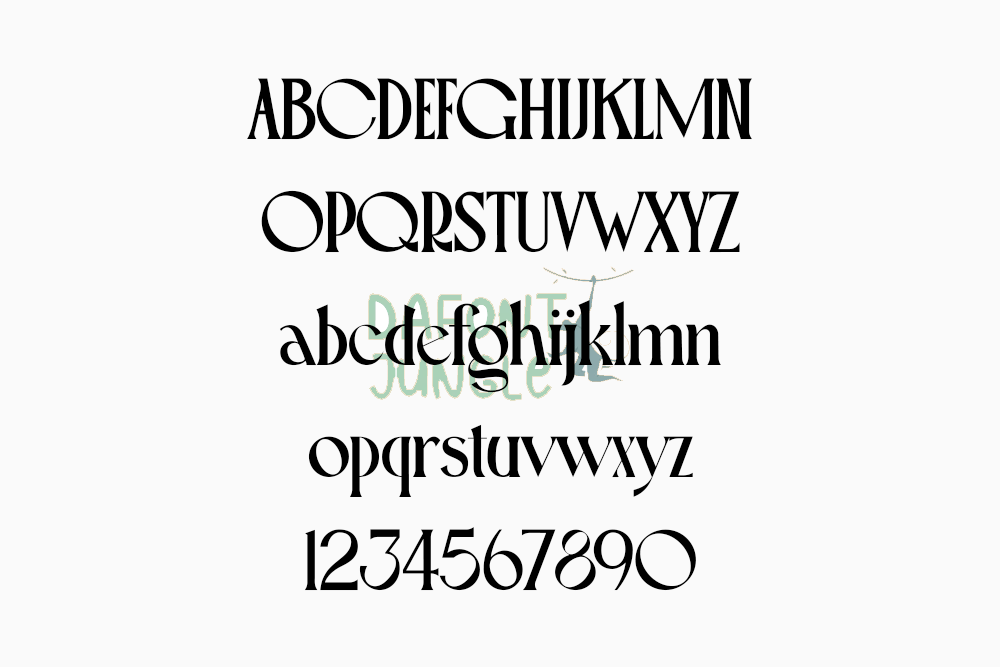
Palmore – Retro Condensed Display Font
Palmore is a bold, vintage-style typeface with rounded letters and a strong look. Its tall, condensed shapes and wide curves give your designs a unique rhythm. Use it for titles, logos, and anything that needs a retro feel.
The font includes over 300 glyphs, with support for many languages. It also offers alternate letters and ligatures for more design options. With four font weights, Palmore works well in both classic and modern layouts.